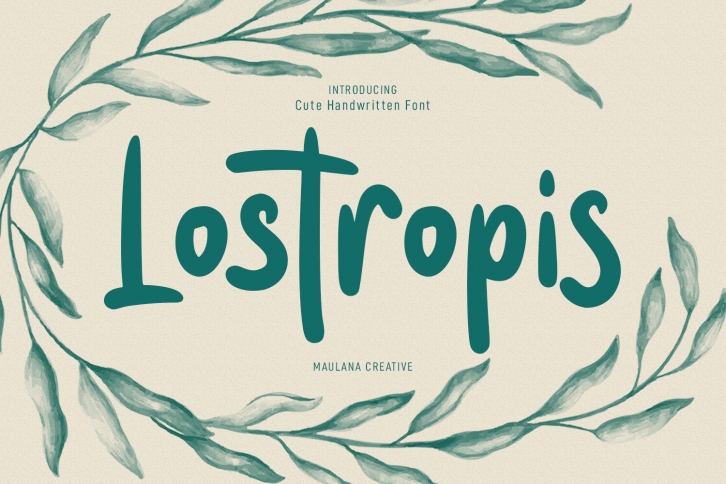
Lostropis is a modern, smooth, and casual handwritten font. It has beautiful and well-balanced characters and as a result, it matches a wide pool of designs. Add it to your most creative ideas and notice how it makes them come alive!